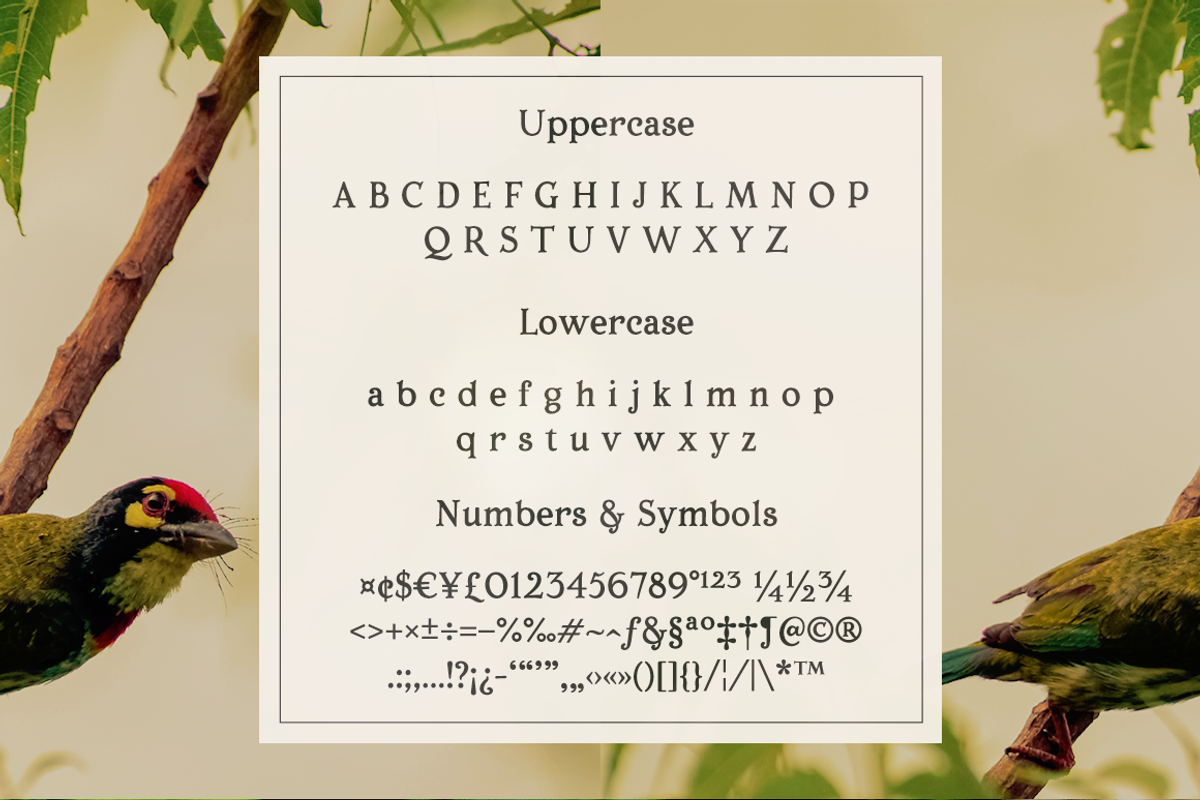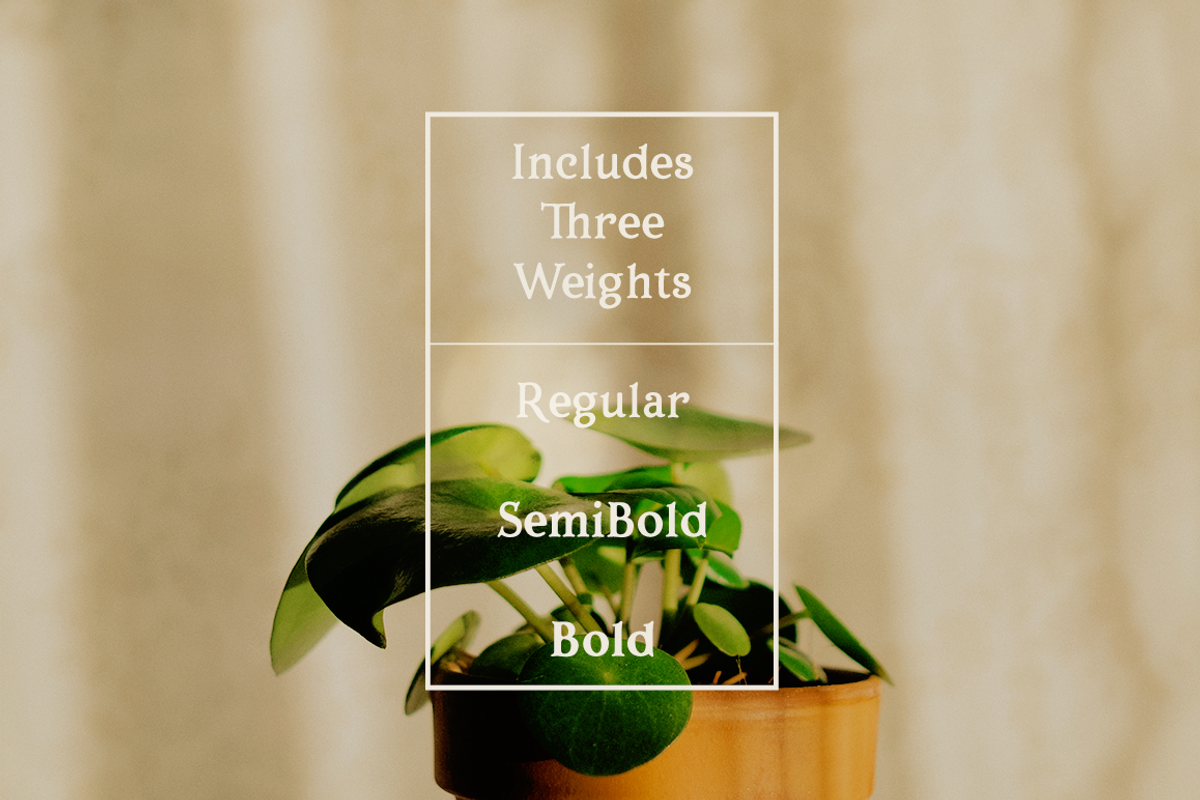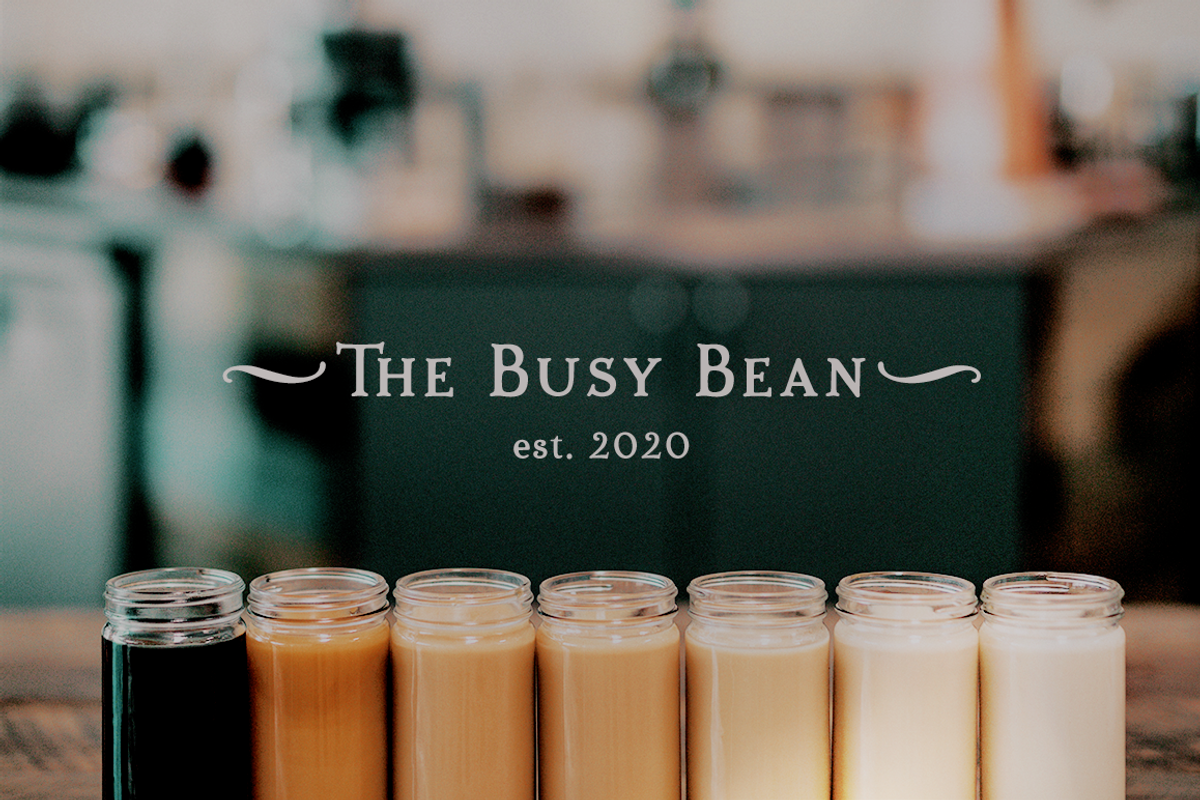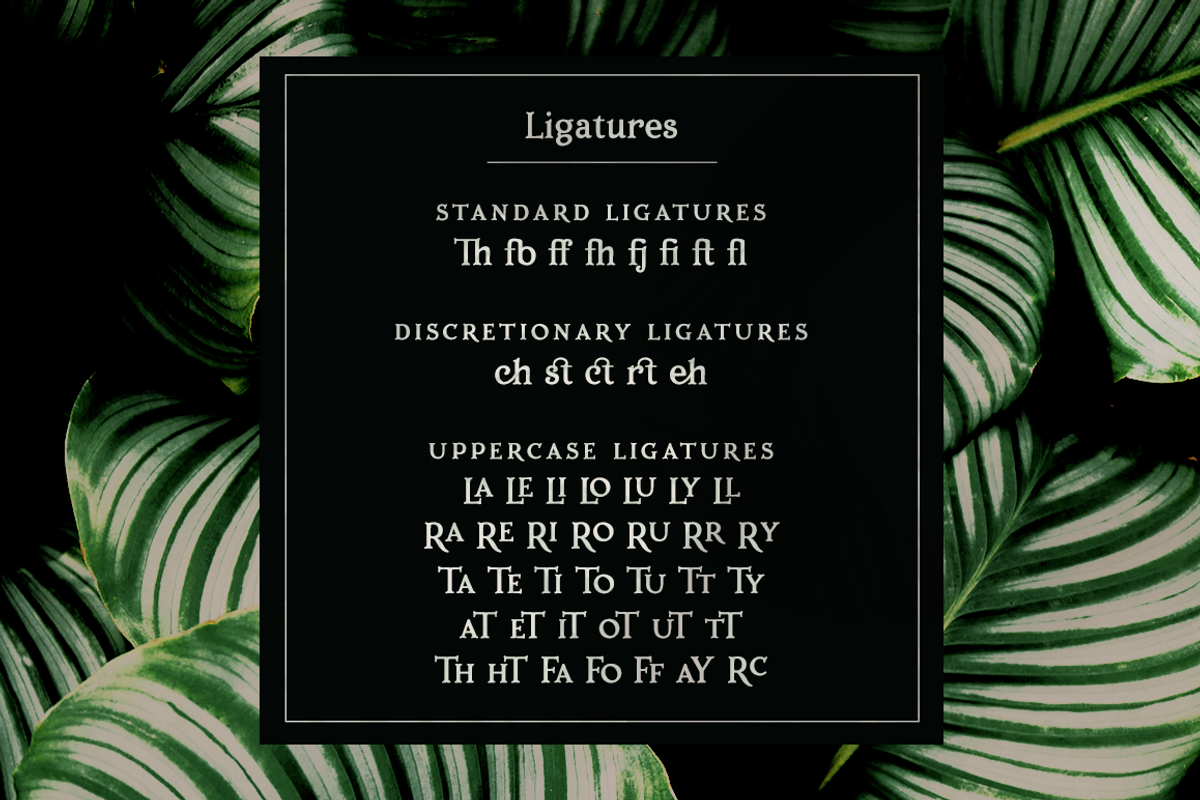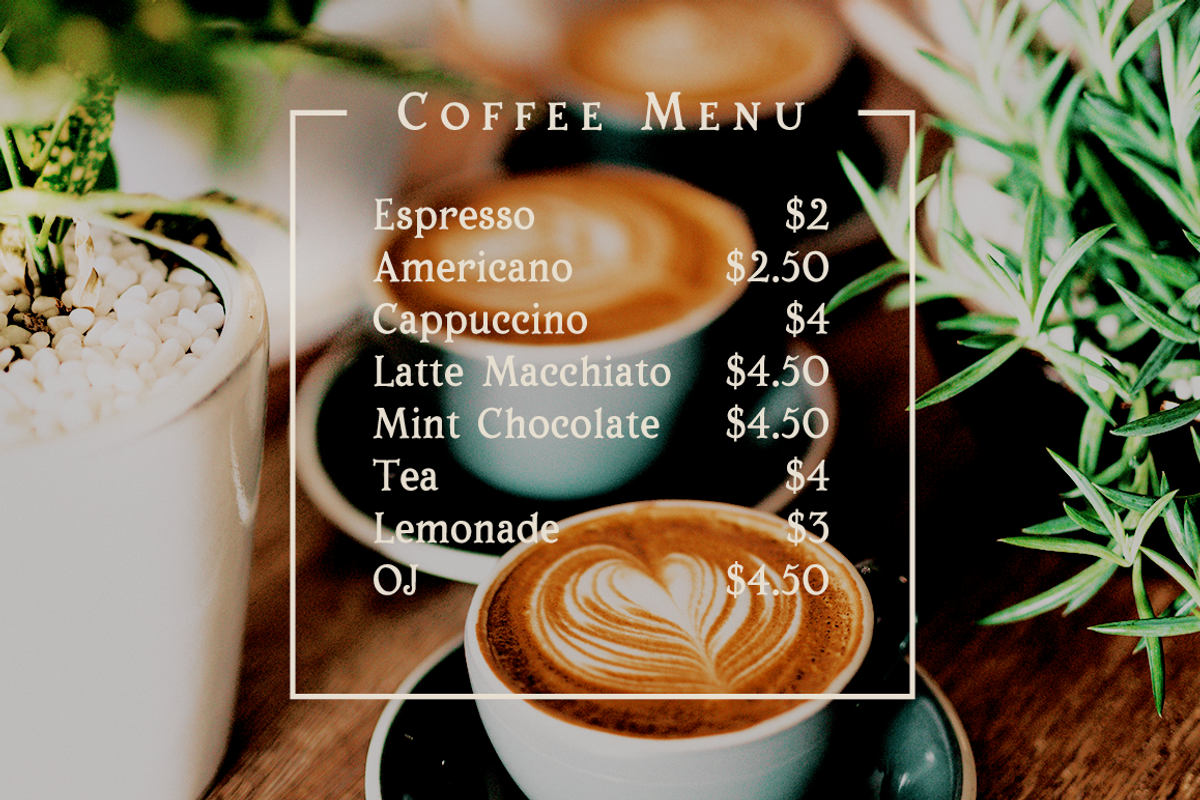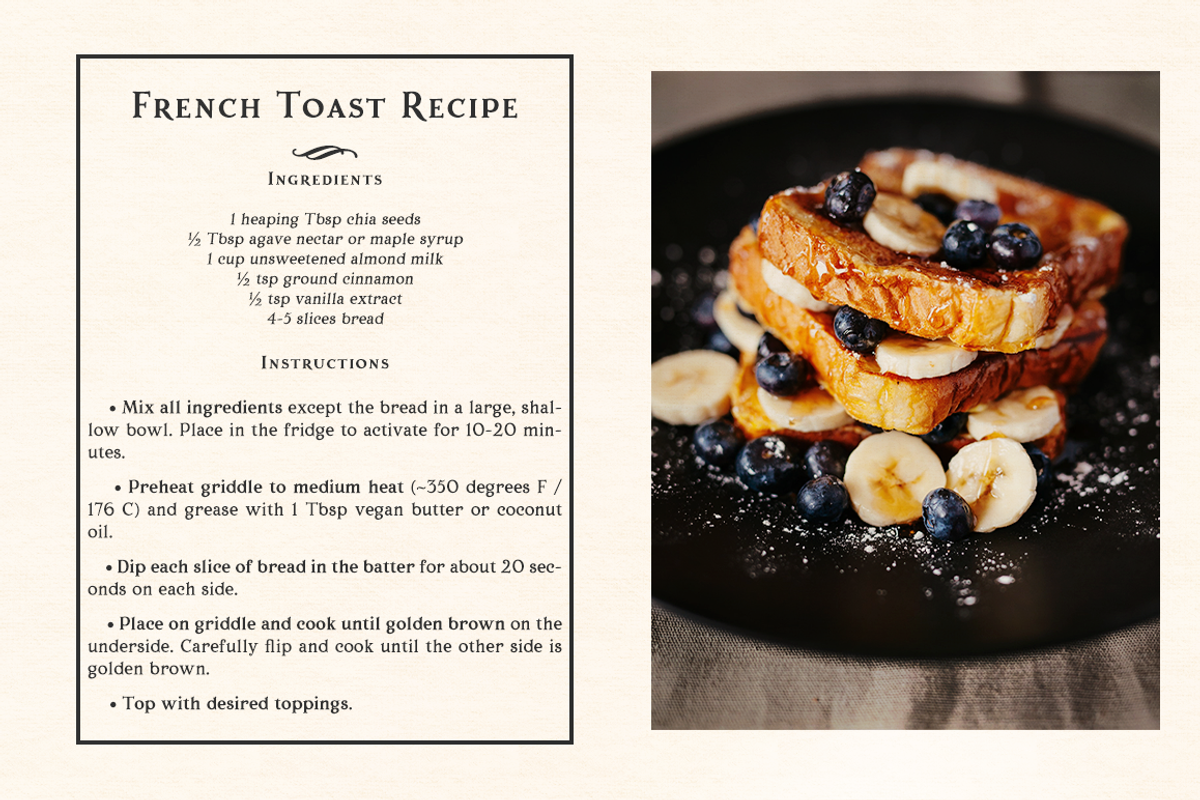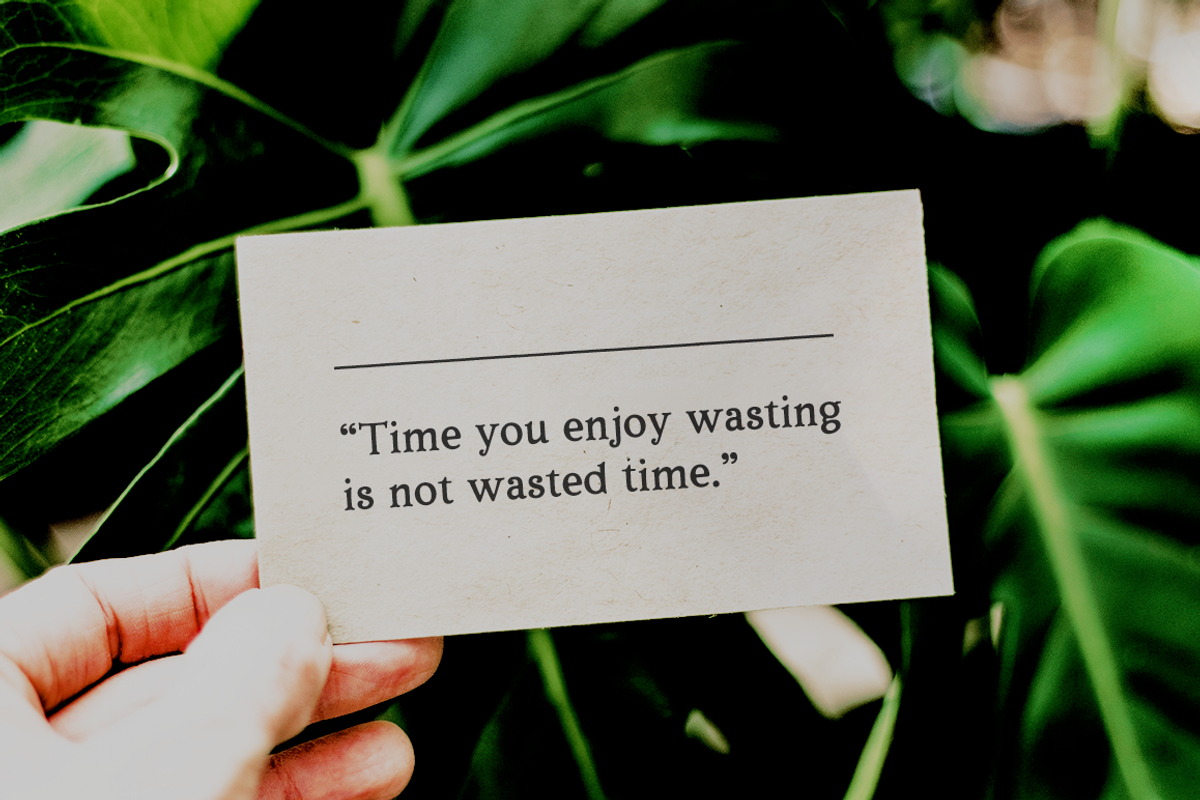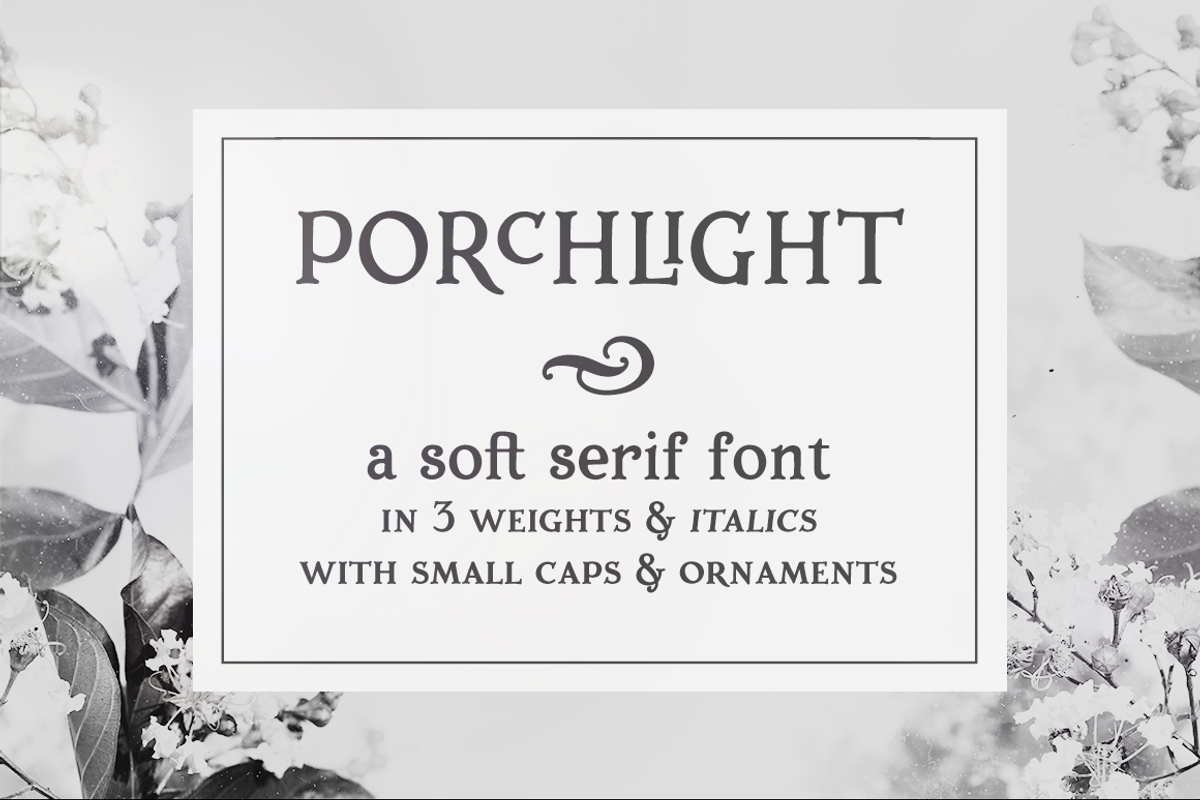
Porchlight classic serif font
Porchlight is a soft serif font inspired by vintage French typography. It includes three weights: regular, semi bold and bold, with matching italics. It also includes bonus ornaments that complement the font beautifully, for elegant and easy designs.
Included in this trendy font family:
6 fonts: regular, semibold and bold, plus italics, with over 300 glyps each, including small caps and lots of ligatures.
ornaments font with 52 ornaments (13 different designs, mirrorred horizontally and vertically).
borders font, with borders with different thickness.
Use Porchlight in print layouts, logotype design, social media posts, branding and packaging.